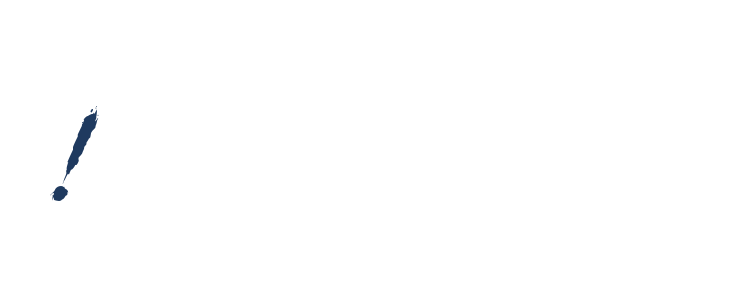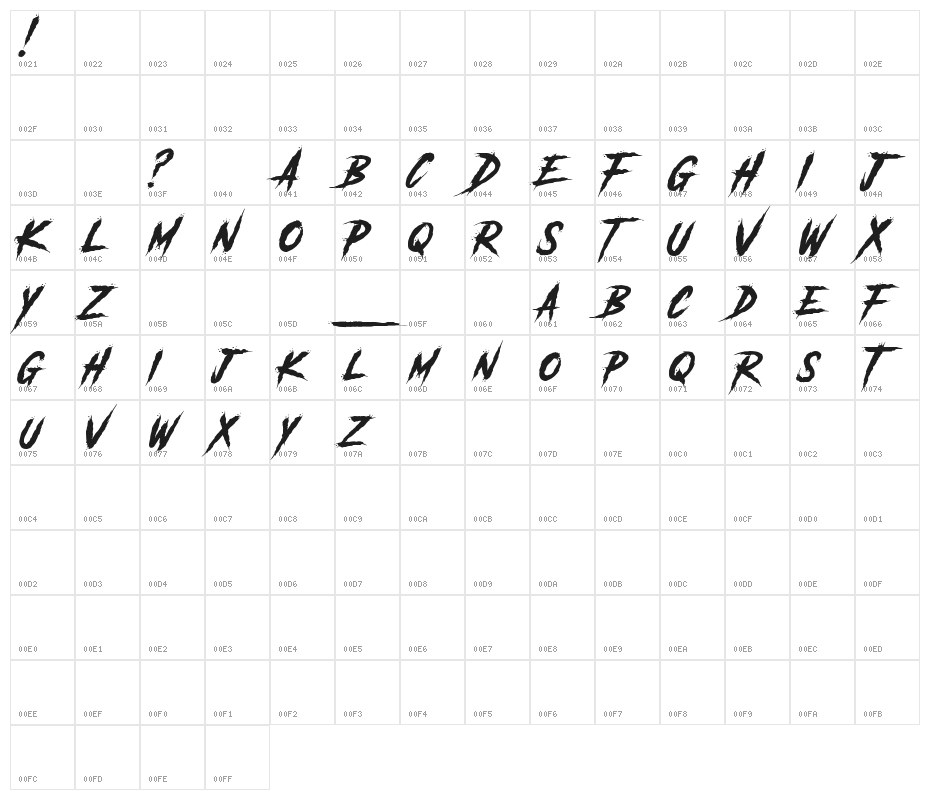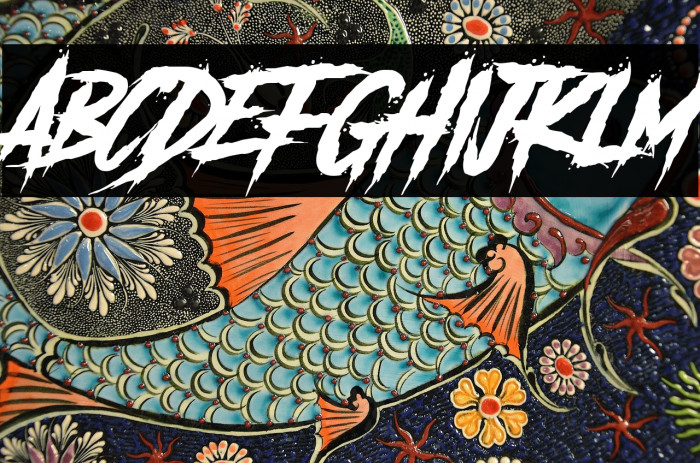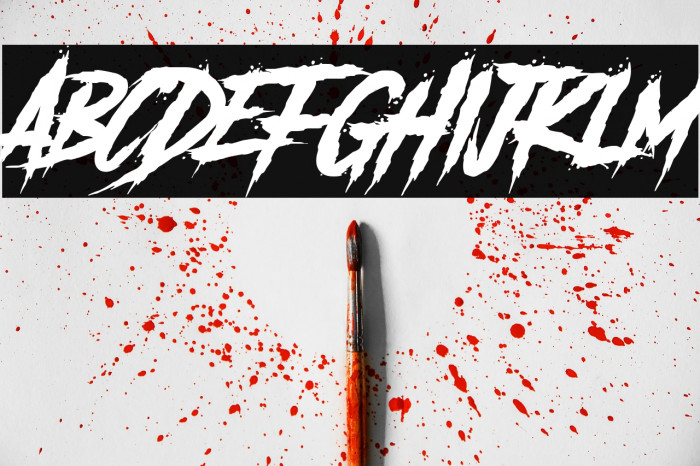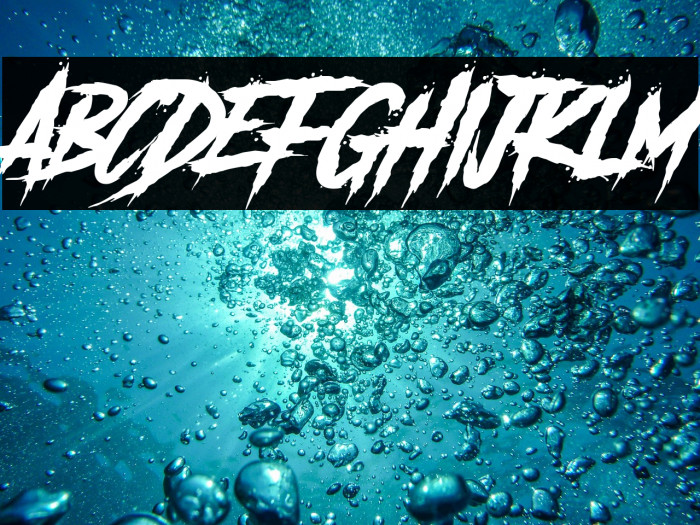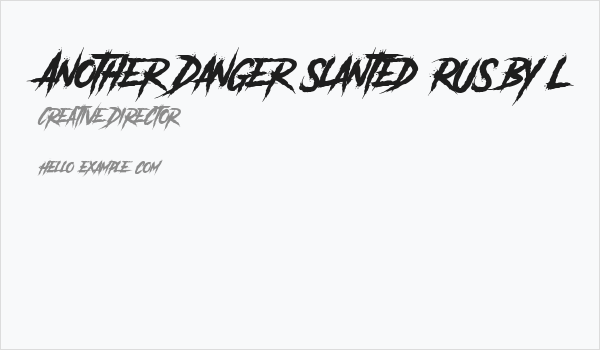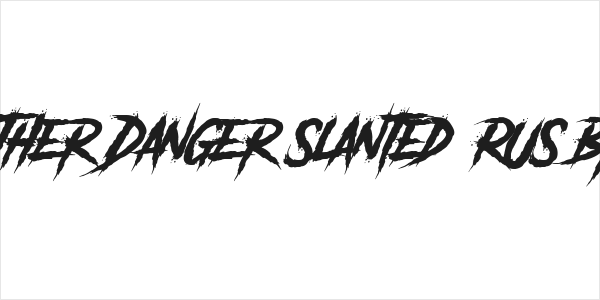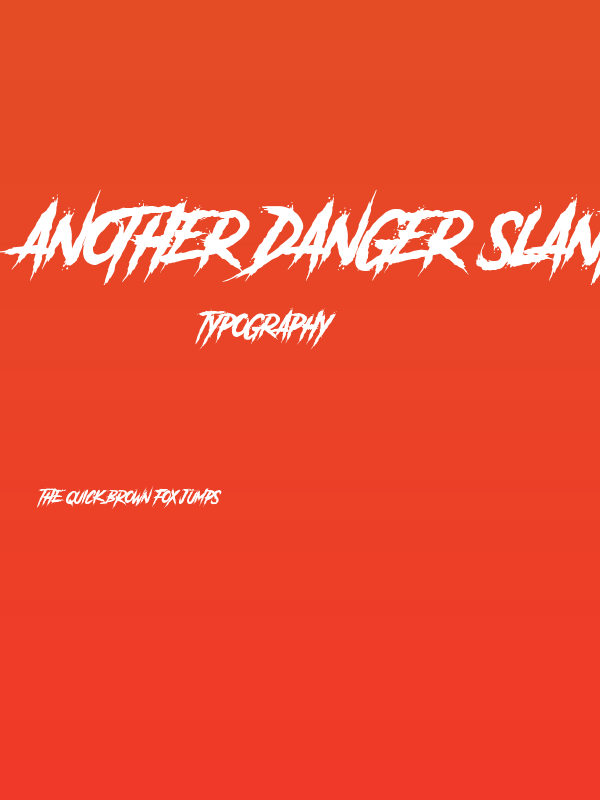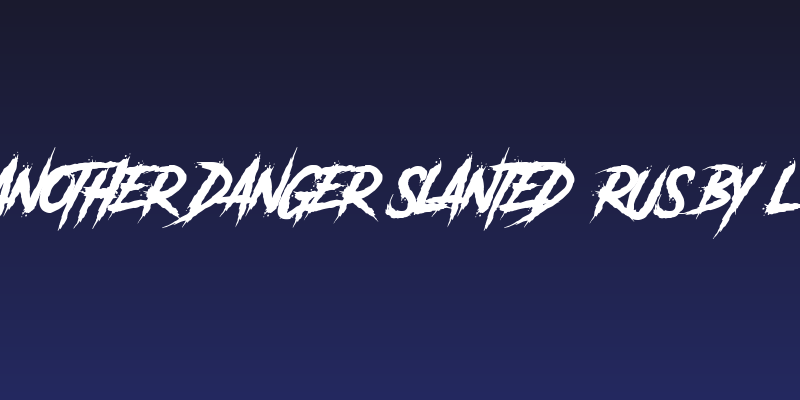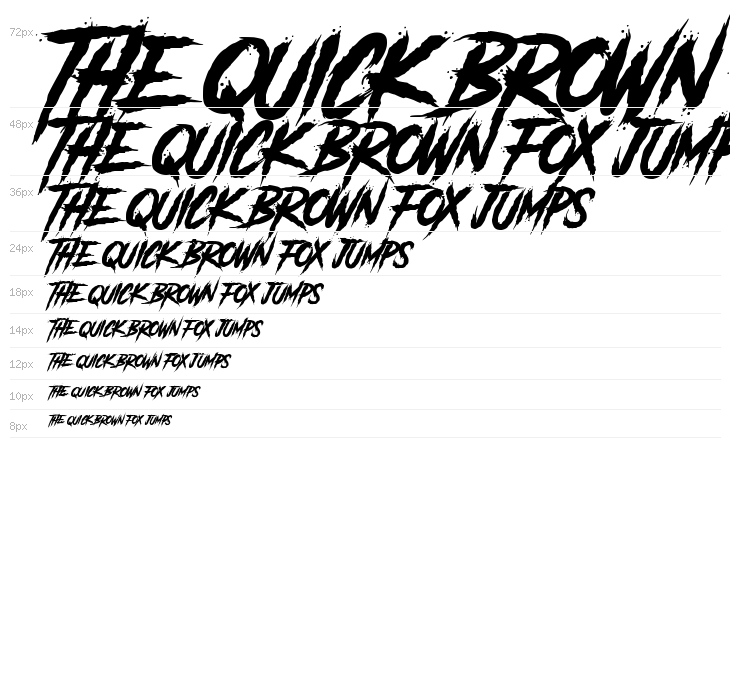
Another Danger Slanted(RUS BY L Font
Another Danger Slanted(RUS BY L Description
This font features a bold, aggressive style with sharp, jagged edges and a dynamic, slanted orientation. The strokes are thick and irregular, giving it a distressed, grunge-like appearance. The letters are tightly spaced, enhancing the chaotic and energetic feel. The uppercase and lowercase letters maintain a consistent style, with exaggerated angles and a sense of movement. This font is highly decorative, making a strong visual impact with its raw and edgy aesthetic.
| Use Case | Logos, Headlines |
| Proposed Projects | Ideal for music album covers, horror movie posters, extreme sports branding, or any project requiring a bold, edgy statement. |